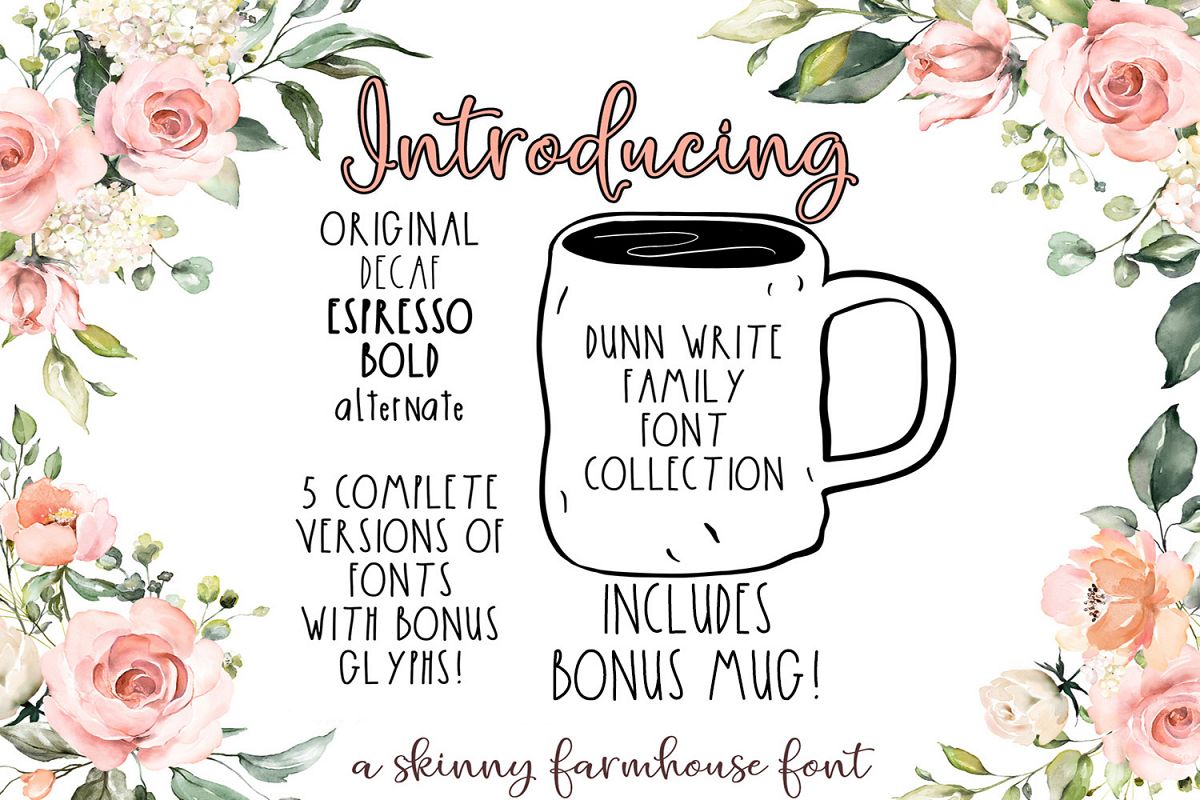
Simply Done Write Farmhouse 3 Weights Font Family & Dingbats
Collection of skinny farmhouse fonts! You get 5 different styles! Also included is a cutting file of a farmhouse mug!
In the collection you get:
Decaf
Bold
Extra Bold
Alternate
All families include upper and lowercase letters, punctuation and numbers. There are also a few doodles included.